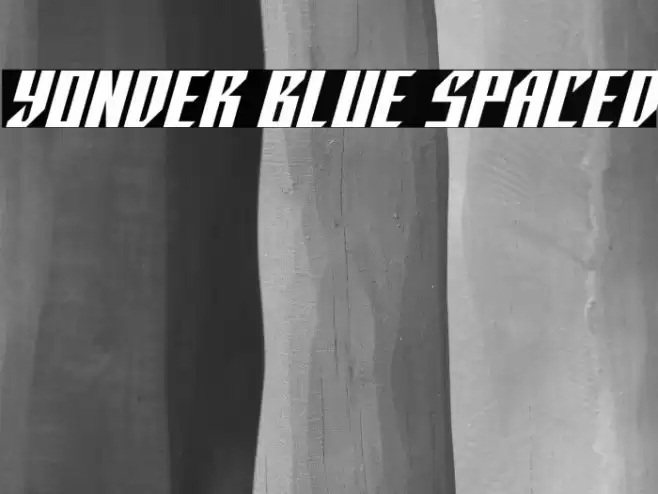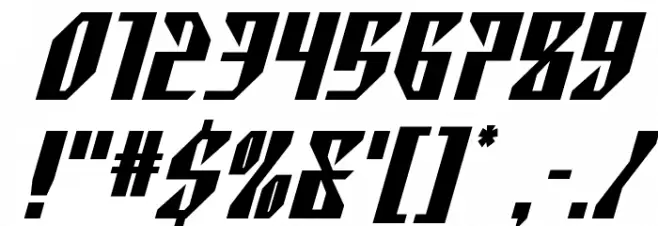
Yonder Blue Spaced Font
Yonder Blue Spaced Description
This font features a bold and dynamic design with sharp, angular edges and a forward-leaning stance, giving it a sense of motion and energy. The uppercase letters are particularly striking, with a futuristic and aggressive style that commands attention. The lowercase letters maintain the same angular aesthetic, ensuring consistency across the typeface. Numbers and special characters are designed with the same boldness and angularity, making them stand out in any context. The overall look is modern and edgy, suitable for projects that require a strong visual impact.
A bold, angular font with a dynamic and futuristic style from Regular fonts.
- Proposed Projects: Ideal for sports branding, video game titles, posters, and any project needing a bold, energetic typeface.